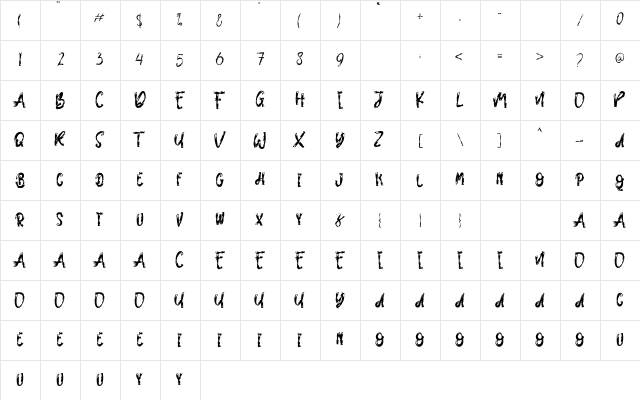
ArjunaFloyd Regular
Design Context for ArjunaFloyd Typeface
ArjunaFloyd is a composed and adaptable typeface that performs quietly and consistently across a wide range of design contexts.